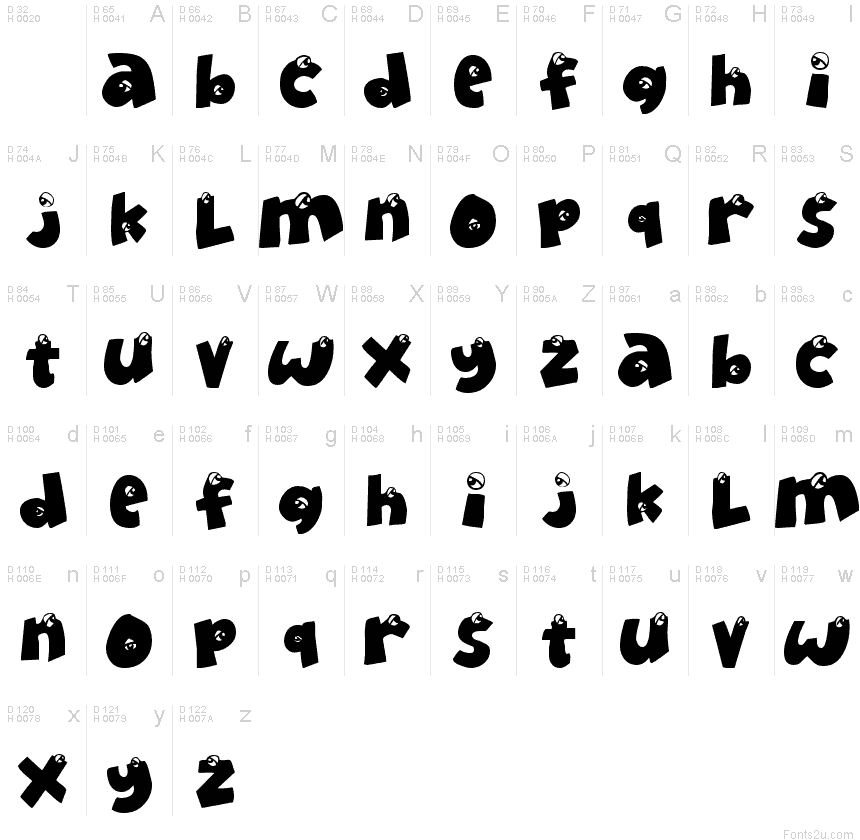
EyeOnlyHaveEyesForYou
Eye Only Have Eyes For You font by Jakob Fischer aka PizzaDude is a free cartoon display typeface packed with personality. Each chunky, inky letter carries its own little eyeball, giving words a goofy, slightly mischievous gaze that feels hand-cut and alive. The rhythm is bouncy and irregular, so text looks like it’s wriggling across the page, grabbing attention without needing color or effects.
This free font shines on spooky-fun posters, Halloween invites, kids’ book covers, slime-green packaging, YouTube thumbnails, and any playful horror-comedy branding. Using EyeOnlyHaveEyesForYou in big sizes lets those peeking eyes really sell the joke; pair it with a clean, plain sans serif for body text so the wild, watchful letters stay the star.